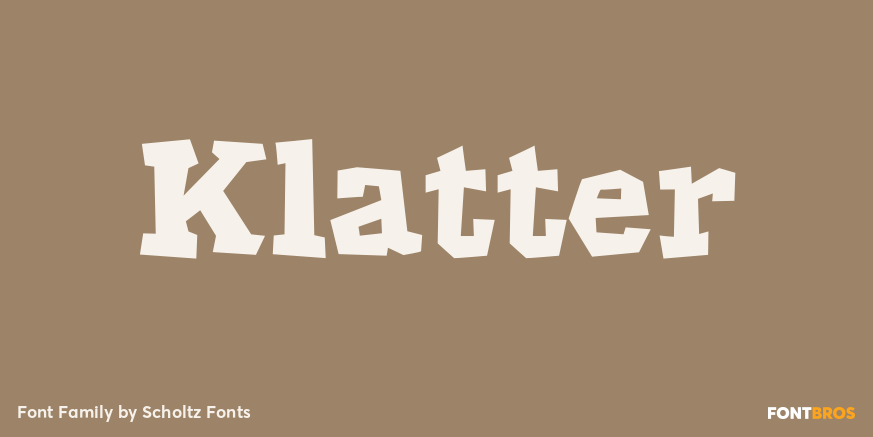
Klatter
About Klatter
Klatter is a font that is ?in your face?. It can\’t be ignored, and draws attention to itself no matter how noisy the environment. Both styles have a full character set with upper and lower case, numerals and mathematical symbols, as well as a full set…